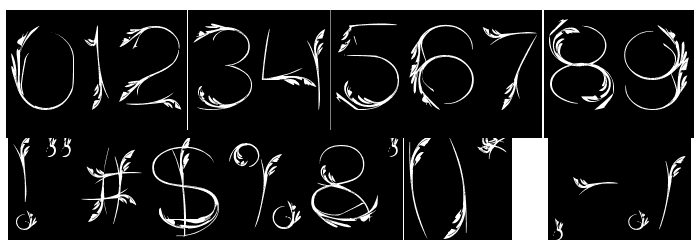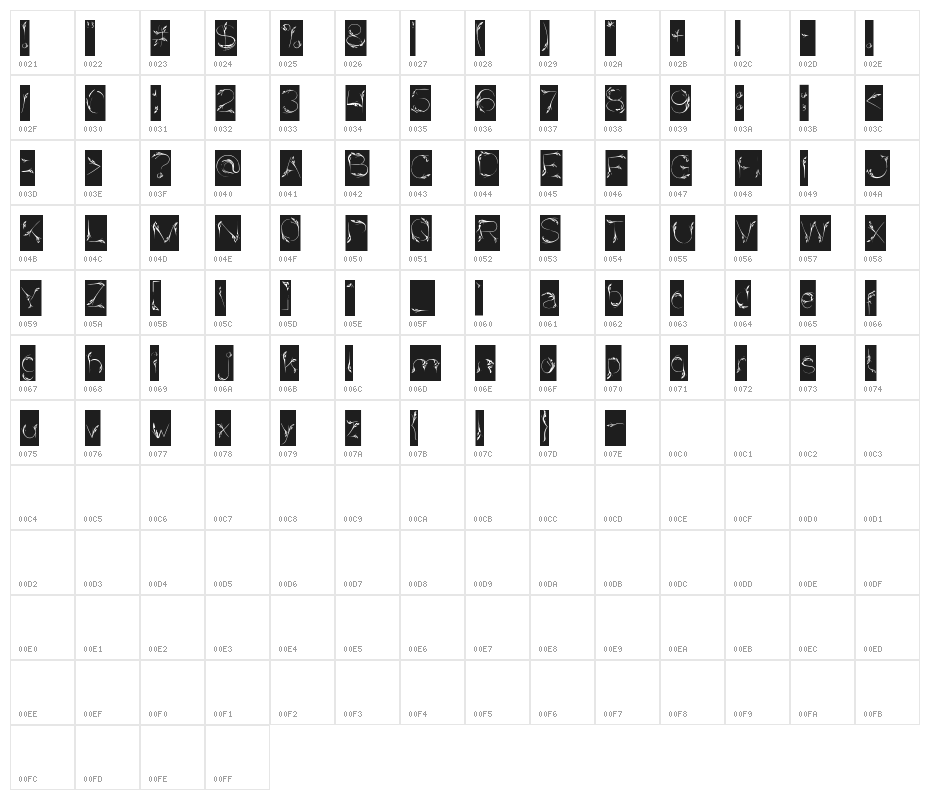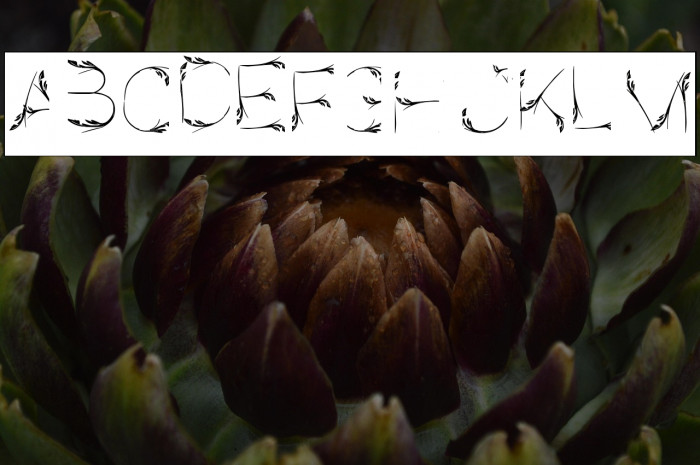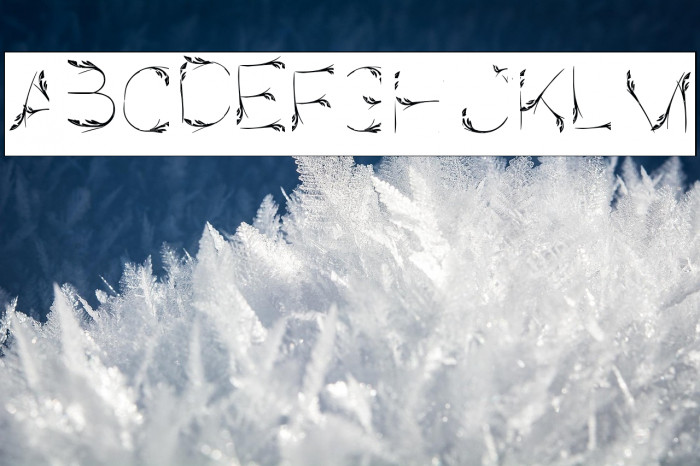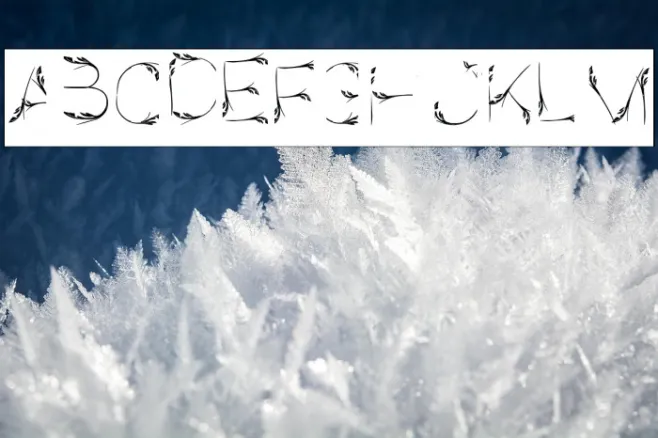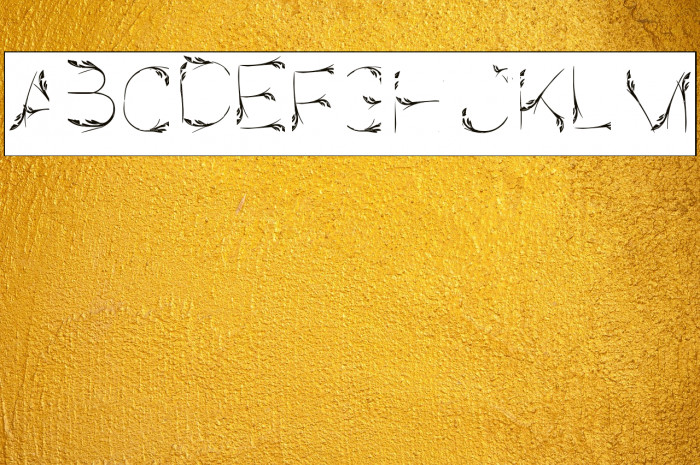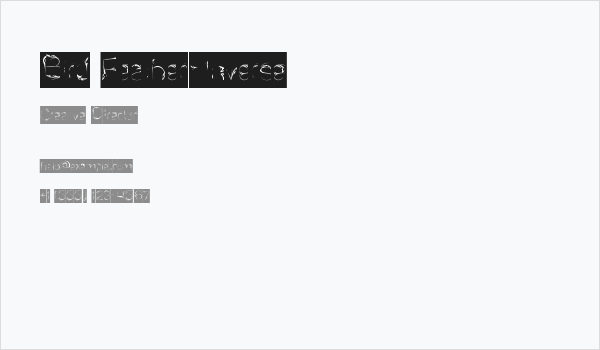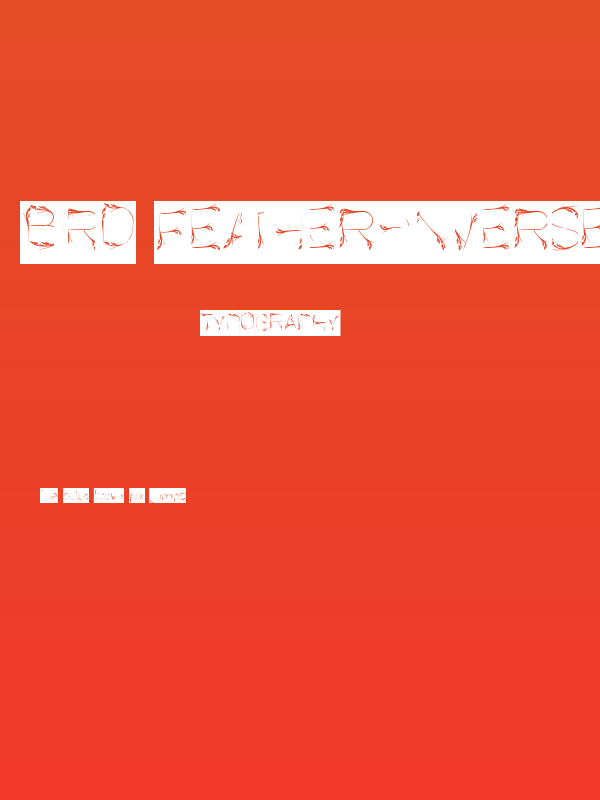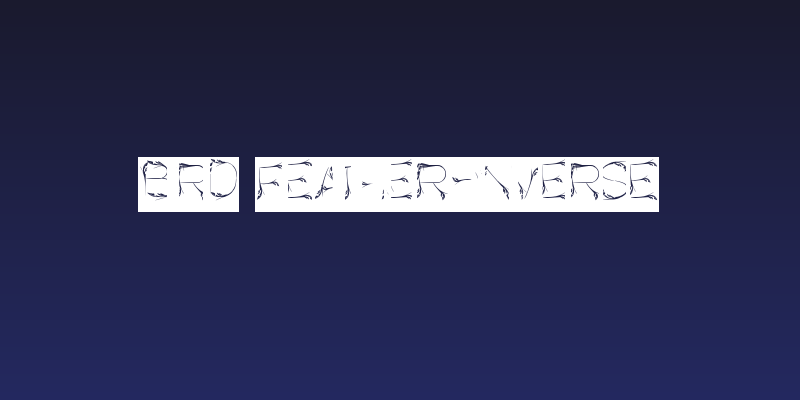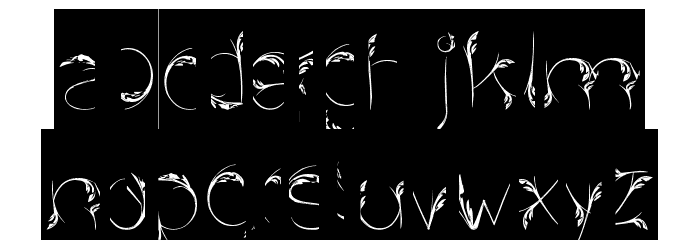
Bird Feather-Inverse Font
Bird Feather-Inverse Description
This font features an intricate design where each character is adorned with delicate feather-like elements, creating a whimsical and artistic appearance. The strokes are smooth and flowing, resembling the natural curves of feathers, which adds a unique decorative flair. The overall look is both elegant and playful, making it stand out for creative projects. The characters maintain a consistent style, with the feather motifs integrated seamlessly into the letterforms. This design is particularly suitable for projects that aim to evoke a sense of nature, freedom, or creativity.
| Proposed Projects | Ideal for nature-themed designs, artistic posters, invitations, and branding that requires a whimsical touch. |